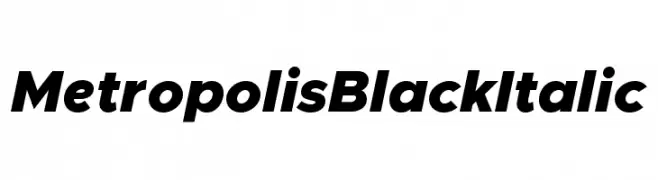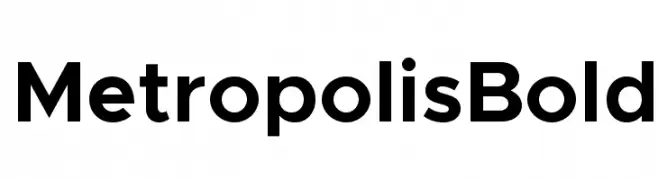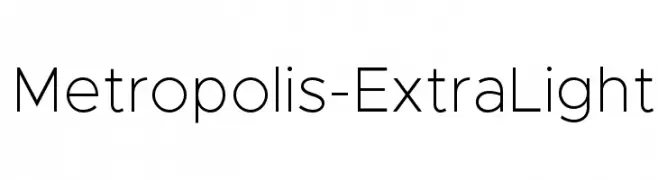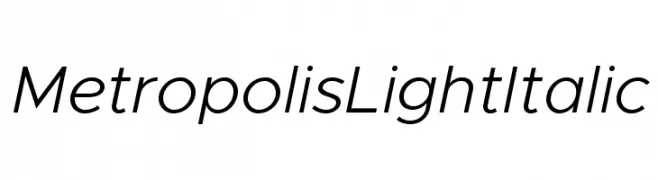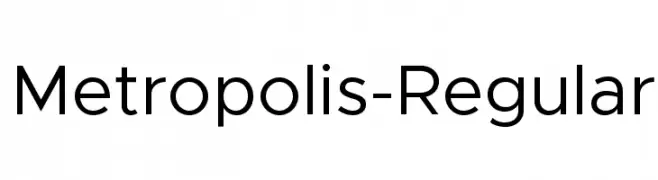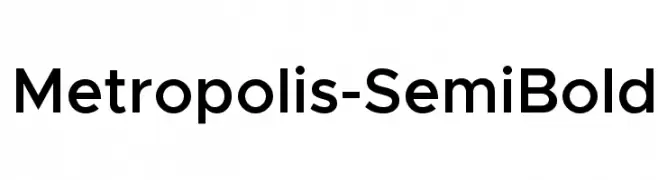
A modern, bold, geometric sans-serif font with uniform stroke widths.
A bold, modern sans-serif font with clean, geometric lines.
A modern, geometric sans-serif font with clean lines and balanced proportions.
A sleek, modern, light italic sans-serif font with elegant slant and clarity.
A modern, geometric sans-serif font with clean lines and balanced proportions.
A geometric sans-serif font with a clean, modern aesthetic and uniform stroke widths.
A bold, italic typeface with a modern and dynamic style.